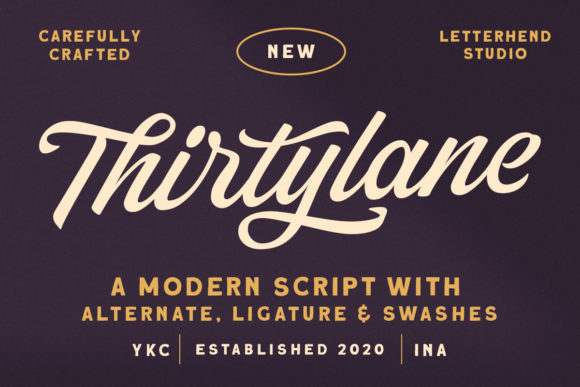
Introducing Thirtylane Font: Elevate Your Designs with a Vintage Flair
In the realm of typography, fonts play a pivotal role in conveying messages, evoking emotions, and creating lasting impressions. Among the myriad of fonts available, Thirtylane Font stands out for its unique blend of vintage style and bold, handwritten charm. This comprehensive article delves into the world of Thirtylane Font, exploring its characteristics, uses, and the distinctive touch it brings to headlines and logotype projects.
What is Thirtylane Font?
Thirtylane is a vintage styled and bold handwritten font, crafted to give your headlines and logotype projects a stylish touch. This font reads as strong, confident, and dynamic and can add tons of nostalgic character to your designs. It’s perfect for designers looking to infuse their work with a sense of history and personality.
Key Features of Thirtylane Font
- Vintage Aesthetic: Thirtylane boasts a classic, retro vibe that instantly captures attention and adds a layer of sophistication to any design.
- Bold and Handwritten: Its bold, handwritten style makes it perfect for headlines, logotypes, and any project requiring a strong typographic statement.
- Dynamic and Confident: The font exudes confidence and dynamism, making it ideal for brands and projects looking to make a bold impact.
- Nostalgic Character: With its vintage inspiration, Thirtylane brings a nostalgic feel to designs, connecting audiences with a sense of familiarity and warmth.
Celebrating Thirtylane: A Deep Dive into its Usage and Impact
Thirtylane’s versatility and distinctive style make it suitable for a wide range of applications. Here are some ideas to get you started:
- Branding and Logotypes: Use Thirtylane to create memorable logos that stand out and communicate your brand’s personality effectively.
- Headlines and Titles: Add a touch of elegance and vintage charm to your headlines and titles, making your content more engaging and noticeable.
- Advertising and Marketing Materials: The bold and confident nature of Thirtylane makes it perfect for advertising and marketing materials, helping you grab attention and convey your message effectively.
- Packaging and Product Design: Incorporate Thirtylane into your packaging and product design to give your products a unique and appealing look.
- Digital Media and Websites: Enhance your digital presence with Thirtylane, using it for website headers, blog titles, or social media posts to add a stylish touch.
Tips for Using Thirtylane Font Effectively
To maximize the impact of Thirtylane Font in your designs, consider the following tips:
- Pair with Complementary Fonts: Combine Thirtylane with simpler, sans-serif fonts for body text to create contrast and enhance readability.
- Adjust Size and Color: Experiment with different sizes and colors to ensure Thirtylane stands out without overwhelming your design.
- Utilize White Space: Don’t be afraid to use white space around your Thirtylane text to make it pop and breathe.
- Limit Usage: While Thirtylane is versatile, it’s most effective when used sparingly. Reserve it for headlines and key messages.
The Inspiration Behind Thirtylane Font
The Thirtylane Font draws inspiration from classic typography of the early 20th century, combined with modern design sensibilities. Its creators aimed to produce a font that not only pays homage to vintage styles but also meets the demands of contemporary design projects. The result is a font that feels both nostalgic and fresh.
In conclusion, Thirtylane Font is a powerful tool for designers looking to add a touch of vintage elegance and boldness to their work. Its unique blend of style, confidence, and nostalgia makes it an excellent choice for a wide range of projects, from branding and advertising to digital media and packaging. By incorporating Thirtylane into your design arsenal, you’re equipped to create visually stunning and memorable pieces that capture the essence of your message.
The Future of Thirtylane and Typography
As design trends continue to evolve, fonts like Thirtylane are at the forefront, blending classic aesthetics with modern functionality. The future of typography is likely to see a continued emphasis on fonts that tell a story, evoke emotion, and provide a unique identity. Thirtylane Font is well-positioned within this trend, offering designers a means to connect with audiences on a deeper level through the power of typography.
Final Thoughts
Whether you’re a seasoned designer or just starting out, Thirtylane Font offers a world of creative possibilities. Its ability to transform ordinary text into a statement piece can elevate your designs, making them more engaging and impactful. As you explore the capabilities of Thirtylane, you’ll discover how this vintage-styled, bold handwritten font can become an integral part of your design identity.